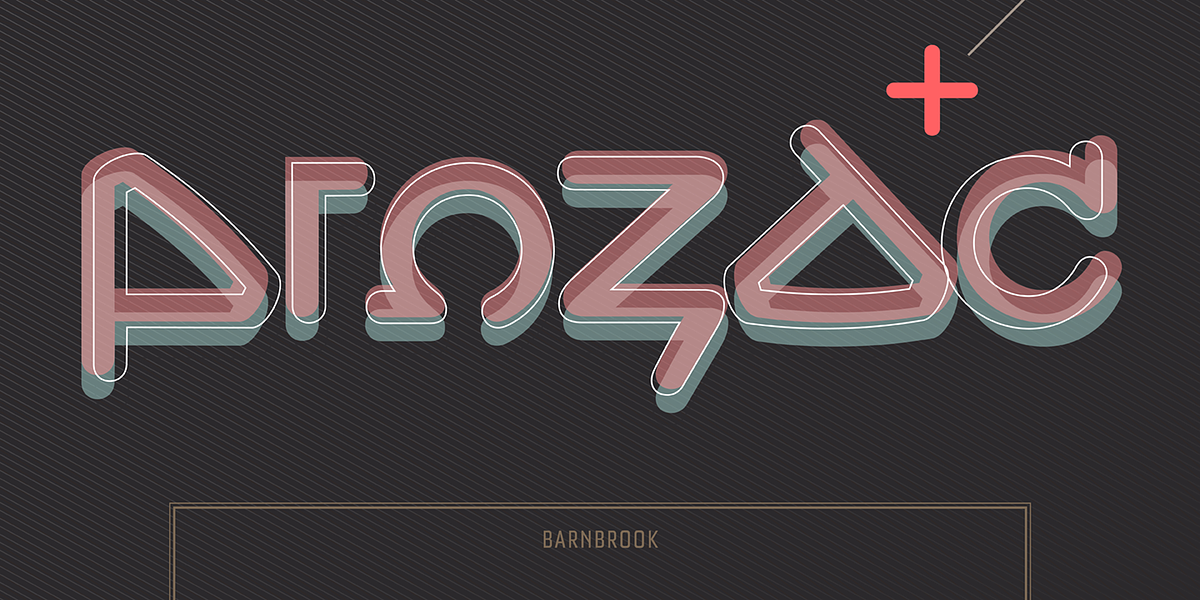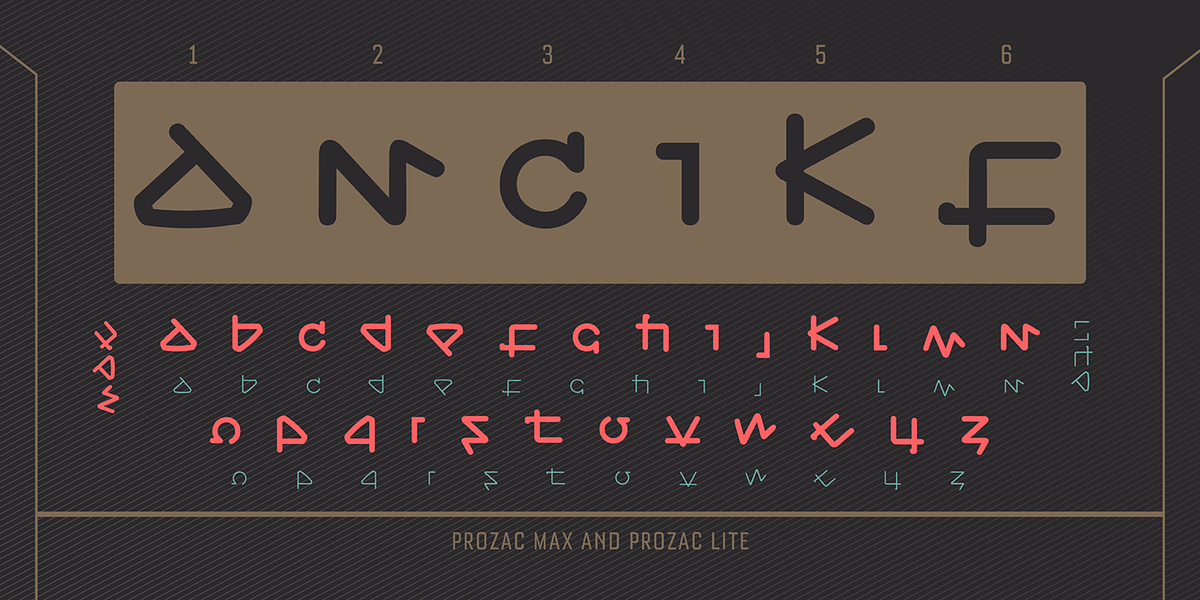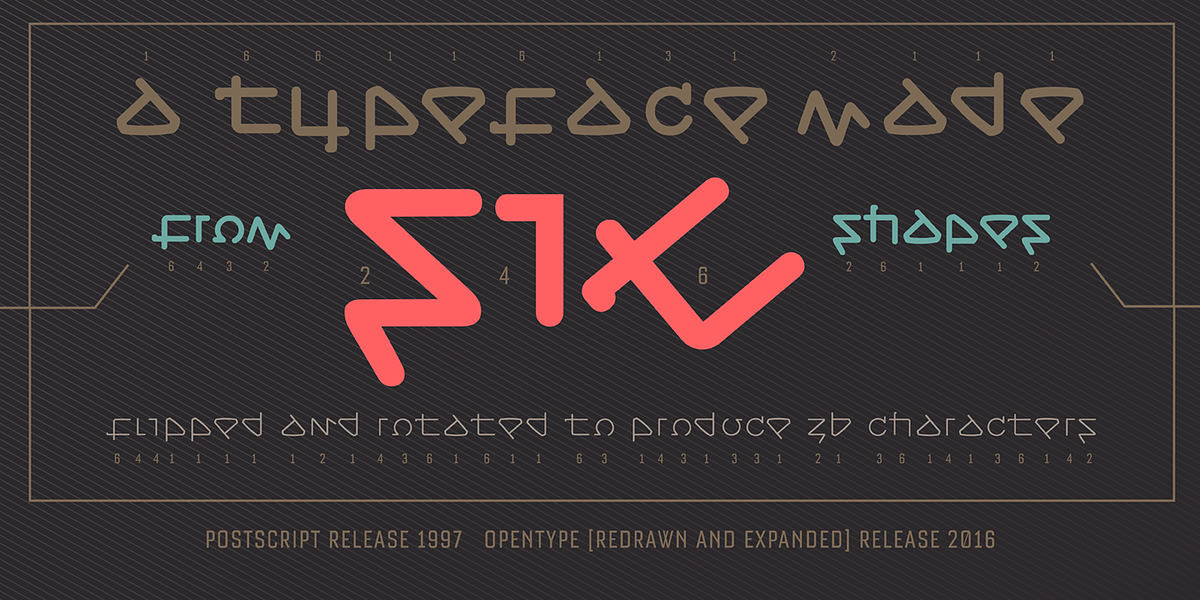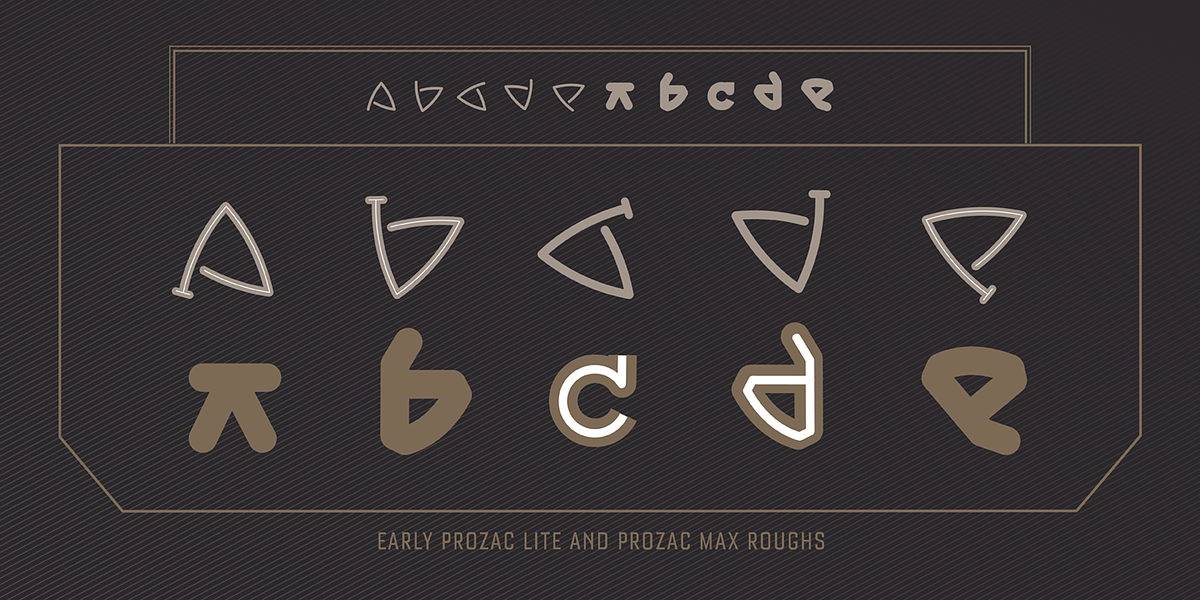
Prozac
Prozac is a unique geometric display font that simplifies the alphabet to just six basic shapes. These shapes are then manipulated through rotation and mirroring to create all 26 letters of the alphabet. This results in a unicase typeface with a soft and minimalist aesthetic, drawing inspiration from early 20th-century modernist design principles.